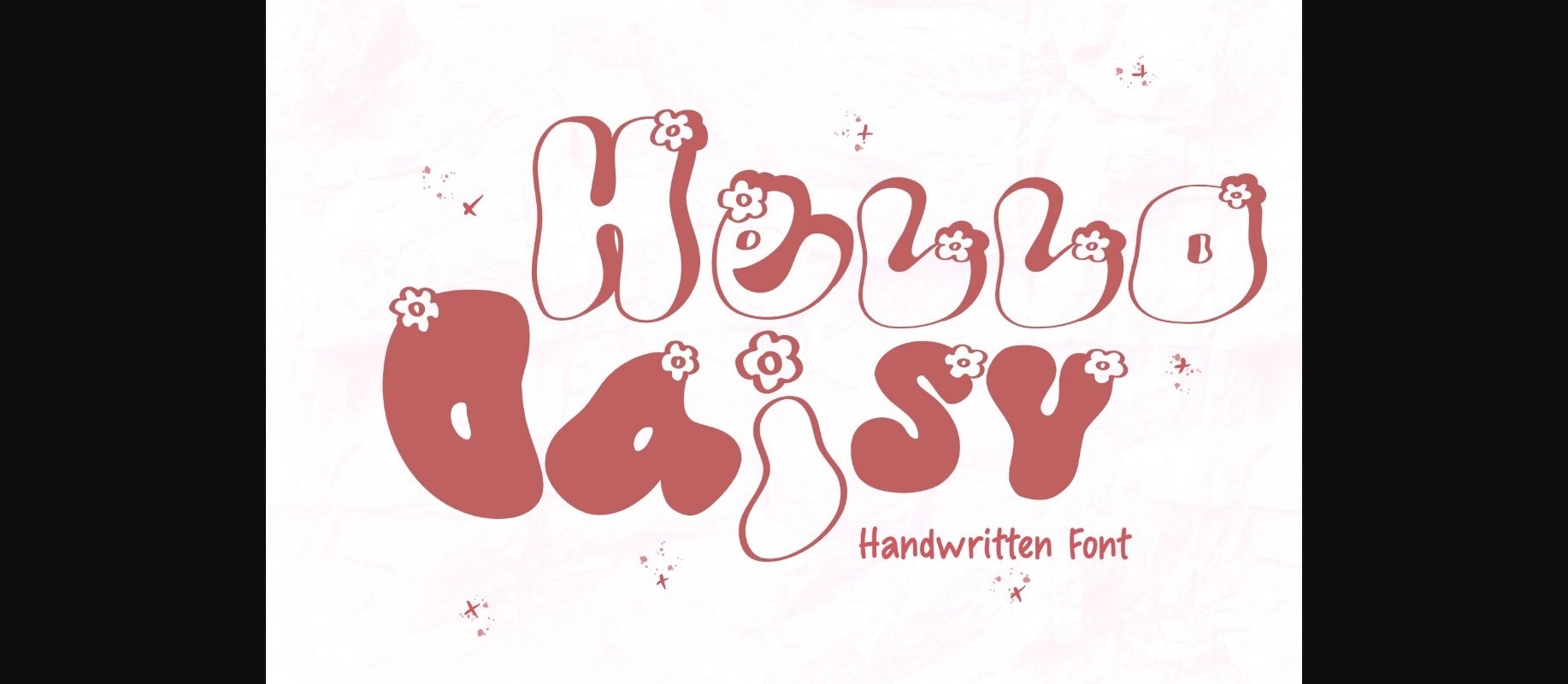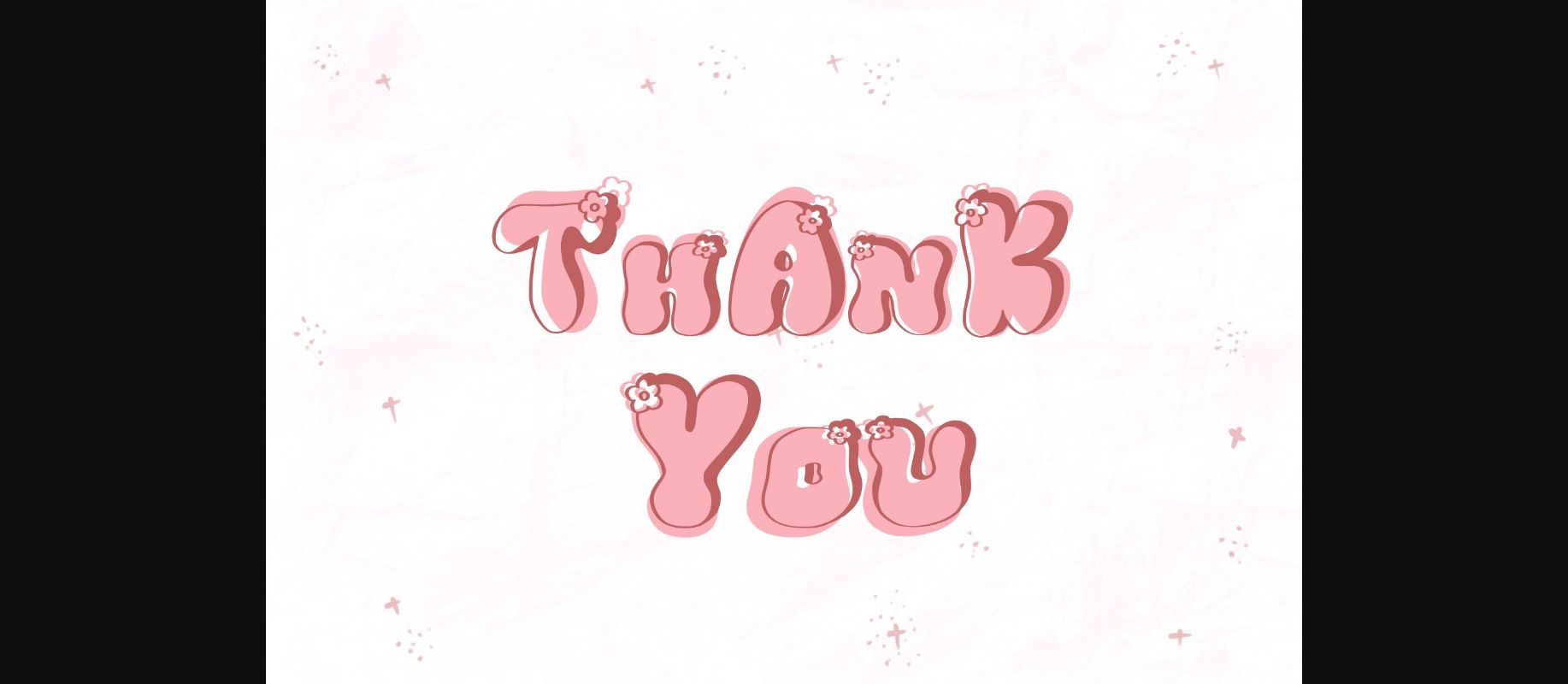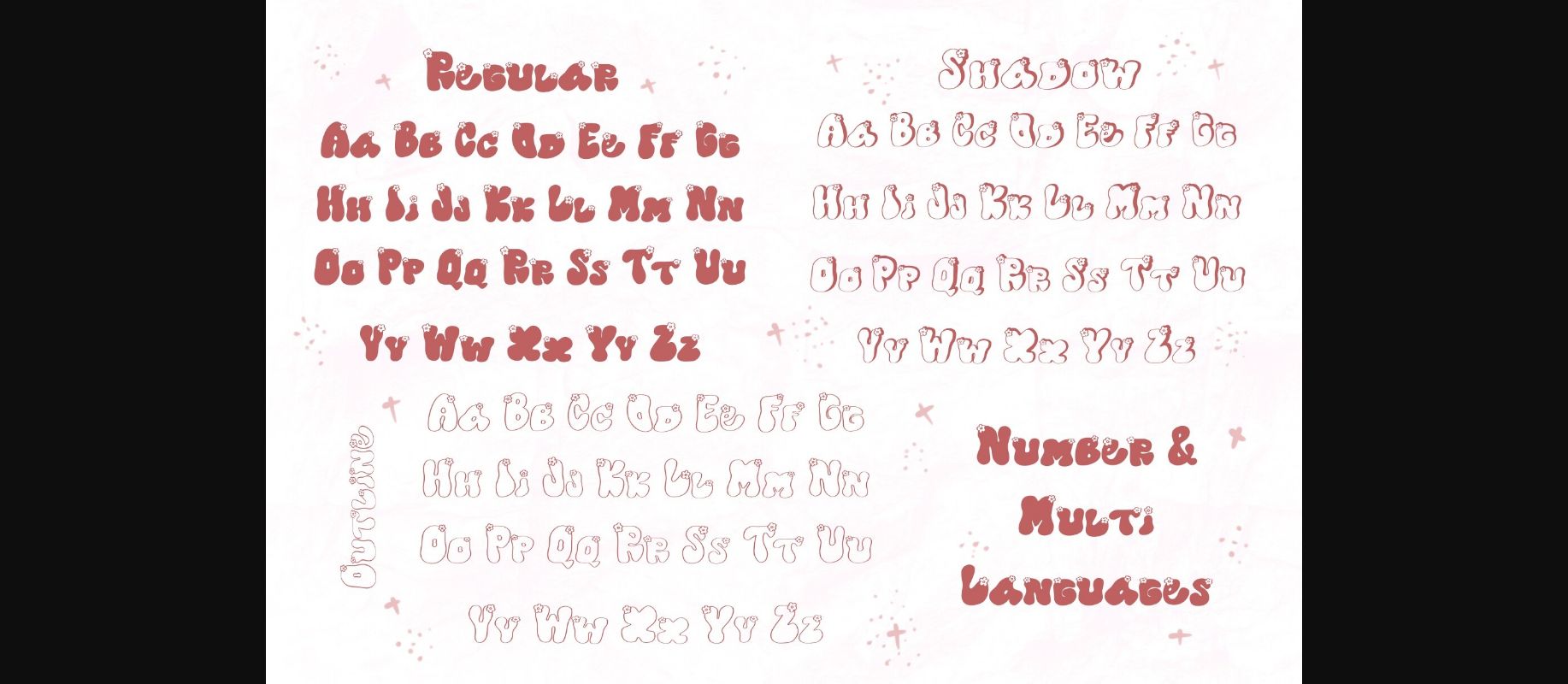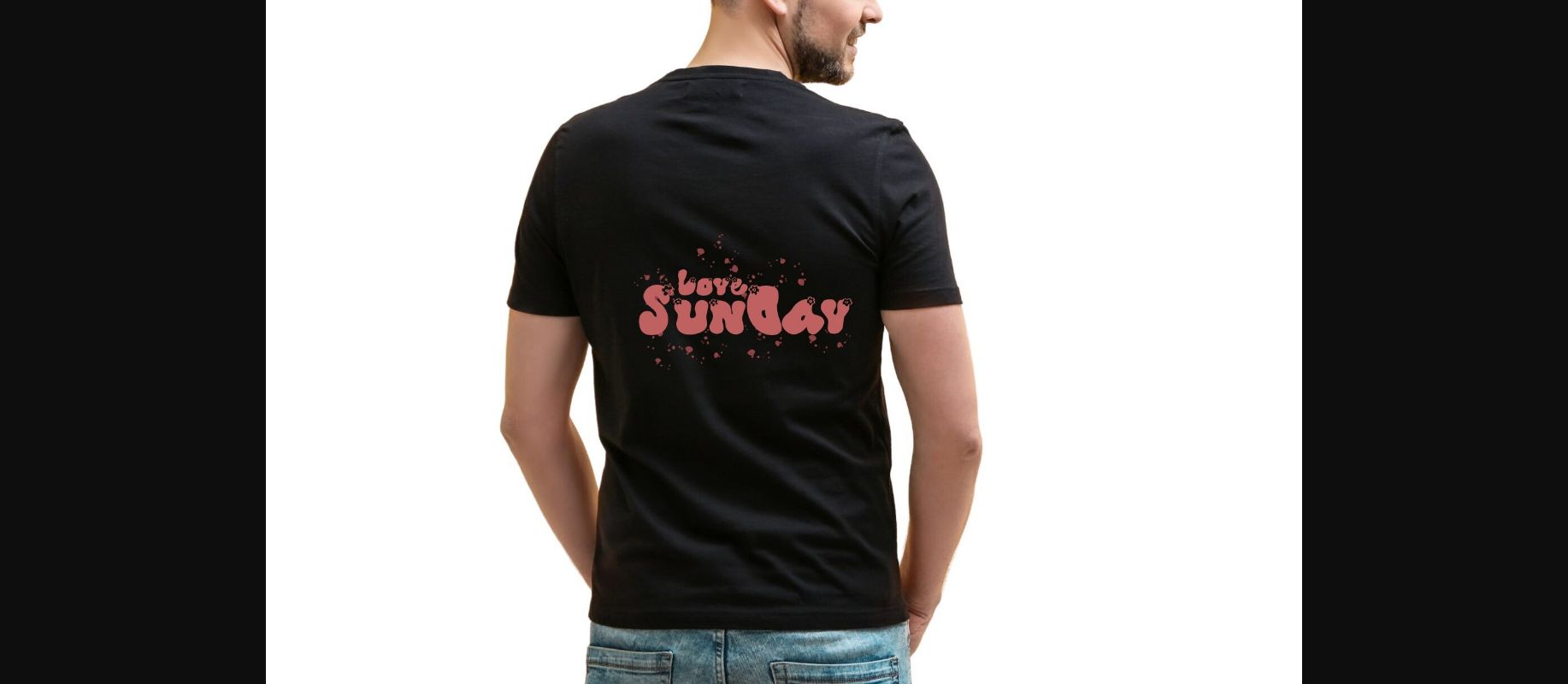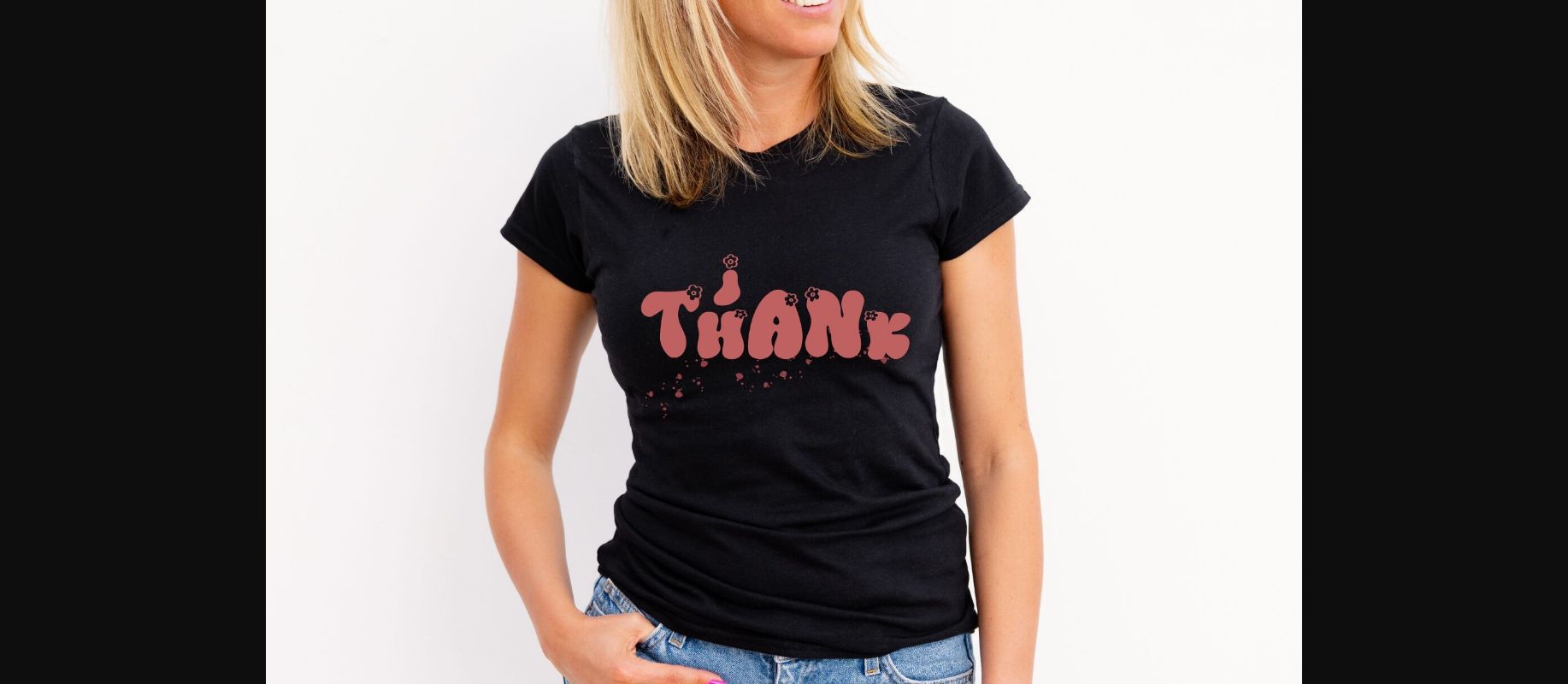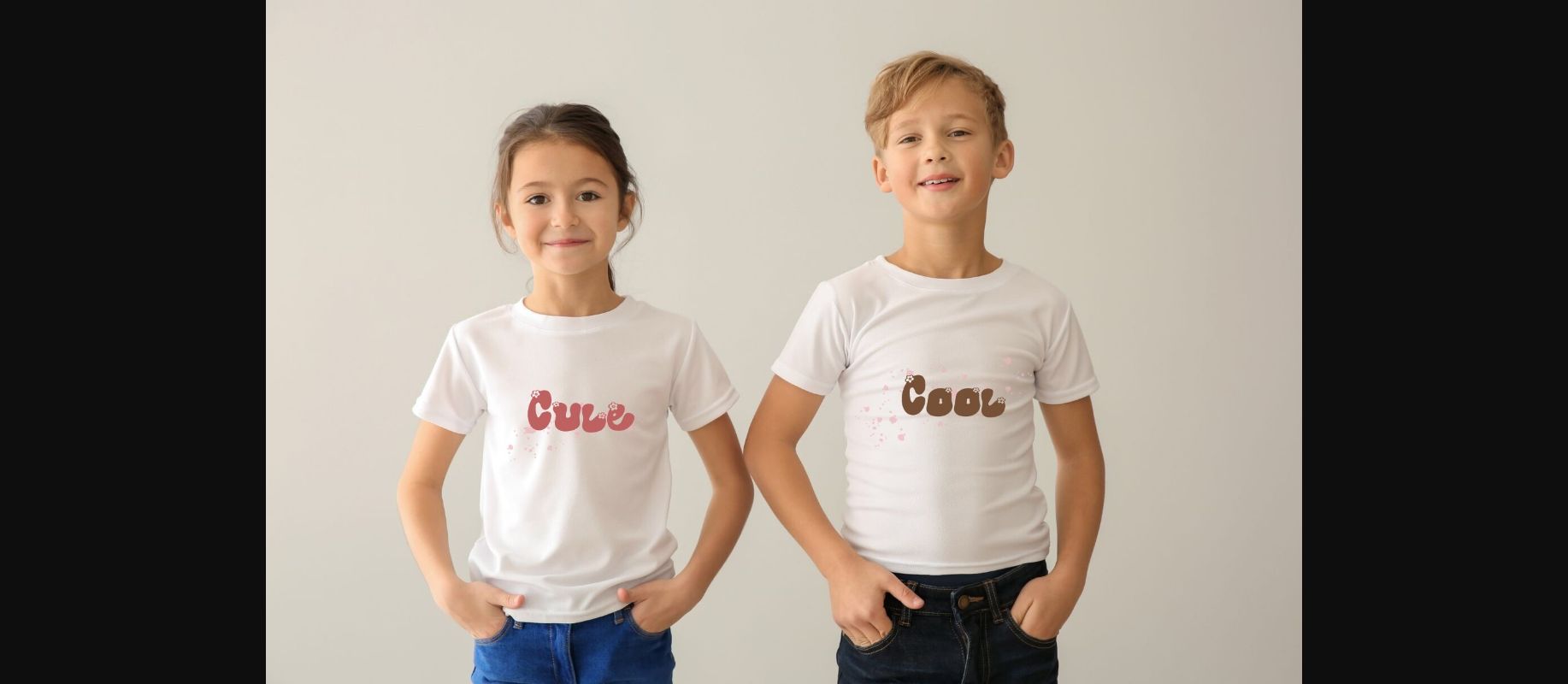
Hello Daisy Font
About Hello Daisy Font
Hello Daisy font is a delightful handwritten typeface adorned with tiny blooming flowers. This charming font brings a touch of whimsy and natural beauty to your projects. Perfect for adding a warm and inviting feel to greeting cards, invitations, and creative designs, Hello Daisy is like a friendly greeting from a meadow of blossoms.